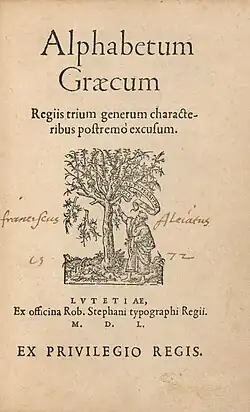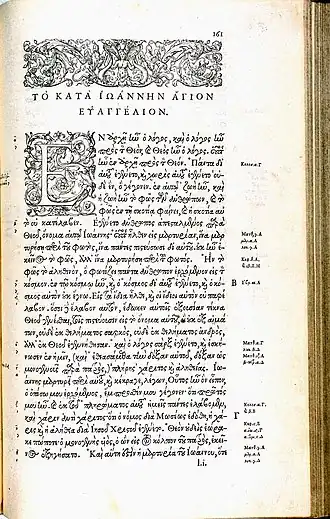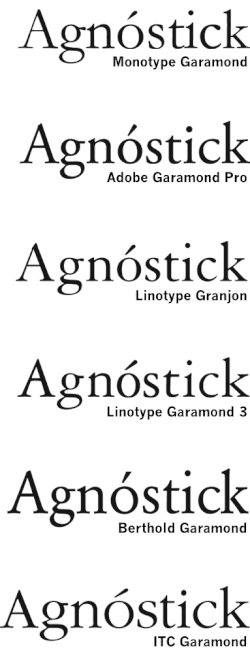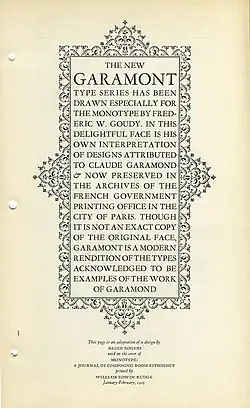
Garamond
| Category | Serif |
|---|---|
| Classification | Garalde Old-style |
| Designer(s) | Claude Garamond Also: Robert Granjon Jean Jannon |
| Date created | c. 1549 |
| Shown here | Adobe Garamond Pro (regular style based on Garamond's work; italic on the work of Robert Granjon) |
Garamond is a group of many serif typefaces, named for sixteenth-century Parisian engraver Claude Garamond, generally spelled as Garamont in his lifetime. Garamond-style typefaces are popular to this day and often used for book printing and body text.
Garamond's types followed the model of an influential typeface cut for Venetian printer Aldus Manutius by his punchcutter Francesco Griffo in 1495, and are in what is now called the old-style of serif letter design, letters with a relatively organic structure resembling handwriting with a pen, but with a slightly more structured, upright design.
Following an eclipse in popularity in the eighteenth and nineteenth century, many modern revival faces in the Garamond style have been developed. It is common to pair these with italics based on those created by his contemporary Robert Granjon, who was well known for his proficiency in this genre.[1] However, although Garamond himself remains considered a major figure in French printing of the sixteenth century, historical research has increasingly placed him in context as one artisan punchcutter among many active at a time of rapid production of new typefaces in sixteenth-century France, and research has only slowly developed into which fonts were cut by him and which by contemporaries; Robert Bringhurst commented that "it was a widespread custom for many years to attribute almost any good sixteenth-century French font" to Garamond.[2][3][4] As a result, while "Garamond" is a common term in the printing industry, the terms "French Renaissance antiqua" and "Garalde" have been used in academic writing to refer generally to fonts on the Aldus-French Renaissance model by Garamond and others.[5][6]
In particular, many 'Garamond' revivals of the early twentieth century are actually based on the work of a later punchcutter, Jean Jannon, whose noticeably different work was for some years misattributed to Garamond. The most common digital font named Garamond is Monotype Garamond. Developed in the early 1920s and bundled with Microsoft Office, it is a revival of Jannon's work.
Characteristics
Some distinctive characteristics in Garamond's letterforms are an 'e' with a small eye and the bowl of the 'a' which has a sharp turn at top left.[8] Other general features are limited-but-clear stroke contrast and capital letters on the model of Roman square capitals. The 'M' is slightly splayed with outward-facing serifs at the top (sometimes only on the left) and the leg of the 'R' extends outwards from the letter. The x-height (height of lower-case letters) is low, especially at larger sizes, making the capitals large relative to the lower case, while the top serifs on the ascenders of letters like 'd' have a downward slope and ride above the cap height.[8] The axis of letters like the ‘o’ is diagonal and the bottom right of the italic 'h' bends inwards.[9] Garamond types have quite expansive ascenders and descenders; printers at the time did not use leading.[10][11][12]
Besides general characteristics, writers on type have generally praised the even quality of Garamond's type: John A. Lane describes his work as "elegant and executed with consummate skill...to a higher standard than commercial interest demanded";[13] H. D. L. Vervliet wrote that in his later Gros-Canon and Parangonne types (meaning sizes of around 40pt and 18pt respectively) he had achieved "a culmination of Renaissance design. The elegant line and subdued emphasis show the classic search for silent and transparent form".[14][a]
Modern Garamond revivals also often add a matching bold and 'lining' numbers at the height of capital letters, neither of which were used during the Renaissance;[15] Arabic numerals in Garamond's time were engraved as what are now called text figures, styled with variable height like lower-case letters.[16]
History
Garamond’s life and his roman type
Garamond worked as an engraver of punches, the masters used to stamp matrices, the moulds used to cast metal type.[b] Garamond cut types in the 'roman', or upright style, in italic, and Greek.[c] In the period of Garamond's early life roman type had been displacing the blackletter or Gothic type which was used in some (although not all) early French printing.[20][21][22] Though his name was generally written as 'Garamont' in his lifetime, the spelling 'Garamond' became the most commonly used form after his death.[23][24] H. D. L. Vervliet, the leading contemporary expert on French Renaissance printing, uses Garamont consistently.[24]
The roman designs of Garamond which are his most imitated were based on a font cut around 1495 for the Venetian printer Aldus Manutius by engraver Francesco Griffo.[25][26] This was first used in the book De Aetna, a short work by poet and cleric Pietro Bembo which was Manutius' first printing in the Latin alphabet.[27] Historian Beatrice Warde has assessed De Aetna as something of a pilot project, a small book printed to a higher standard than Manutius' norm.[28][29] Among other details, this font popularised the idea that in printing the cross-stroke of the 'e' should be level instead of slanting upwards to the right like handwriting, something imitated in almost all type designs since.[24][25] French typefounders of the 16th century assiduously examined Manutius's work (and, it is thought, De Aetna in particular)[27] as a source of inspiration: Garamond's roman, italic and Greek typefaces were all influenced by types used by Manutius.[30]
An event which was to particularly define the course of the rest of Garamond's career came starting on 6 September 1530, when the printer Robert Estienne began to introduce a set of three[d] roman types adapting the single roman type used in De Aetna to a range of sizes.[31][32] These typefaces, with their "light colour and precise cut"[33] were extremely influential and other Parisian printers immediately introduced copies.[34] The largest size "Gros-canon" (42.5pt)[e] particularly became a "phenomenon"[36] in Paris: never before had a roman type been cut in so large a size.[37] The designs copied Manutius's type even to the extent of copying the 'M' shown in De Aetna which, whether intentionally or due to a casting defect, had no serif pointing out of the letter at top right.[38][39][40] This form was to appear in many fonts of the period, including Garamond's earlier ones, although by the end of his career he had switched to mostly using an M on the Roman capital model with a serif at top right.[41]
The period from 1520 to around 1560, encompassing Garamond's career, was an extremely busy period for typeface creation.[42] Many fonts were cut, some such as Robert Estienne's for a single printer's exclusive use, others sold or traded between them (increasingly over time).[43] The many active engravers included Garamond himself, Granjon, Guillaume Le Bé, particularly respected for his Hebrew fonts,[44][45] Pierre Haultin, Antoine Augereau (who may have been Garamond's master),[46] Estienne's stepfather Simon de Colines and others.[47] This period saw the creation of a pool of high-quality punches and matrices, many of which would remain used for the next two centuries.[48]